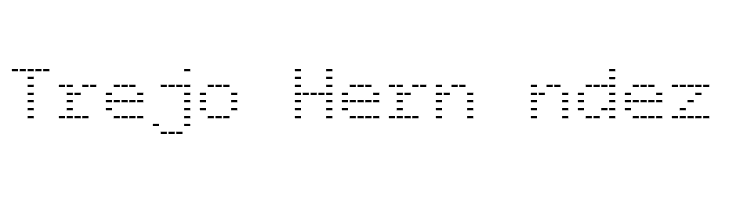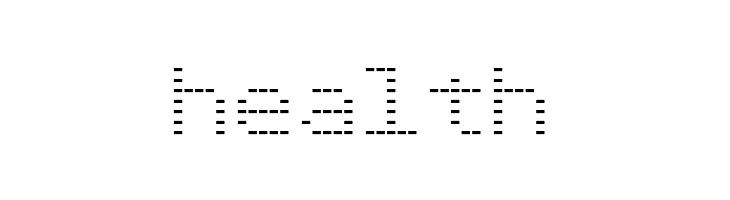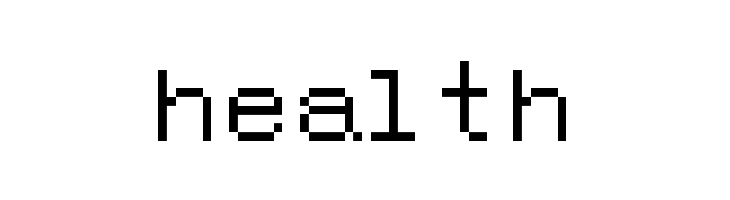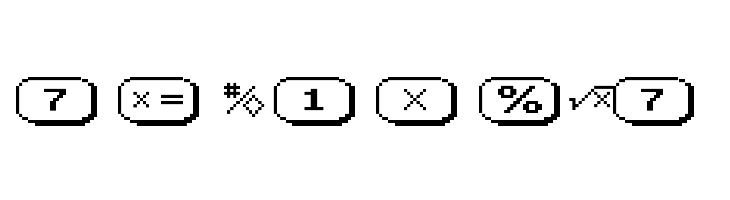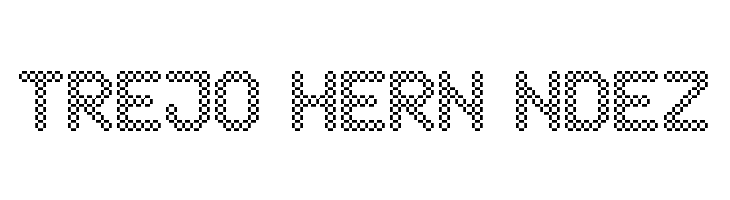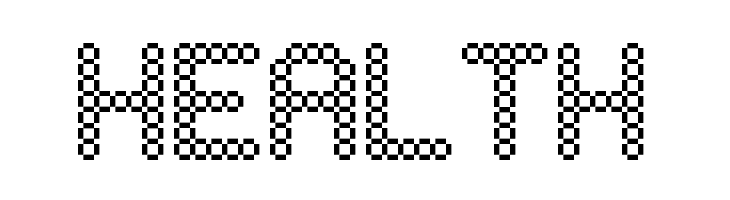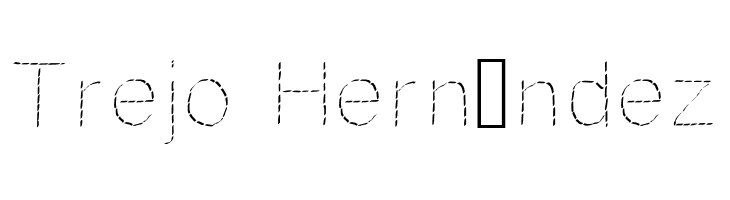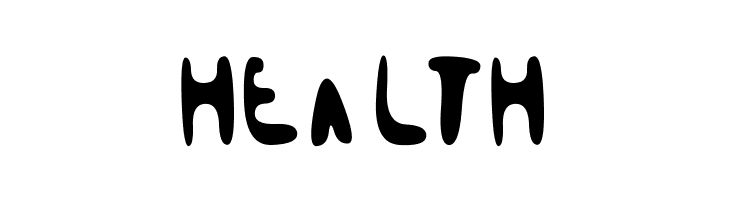
A dotted font with a digital, retro aesthetic.
A futuristic, segmented font with a digital and tech-inspired design.
A pixelated, monospaced font with a retro, digital aesthetic.
A digital, segmented font resembling calculator displays, ideal for technical themes.
A playful, pixelated bubble font with a retro digital aesthetic.
A dotted, digital-style font with a modern and futuristic look.
A dot-matrix style font emulating LED displays with a modern, digital look.
A playful, geometric font with a pixelated, digital style.